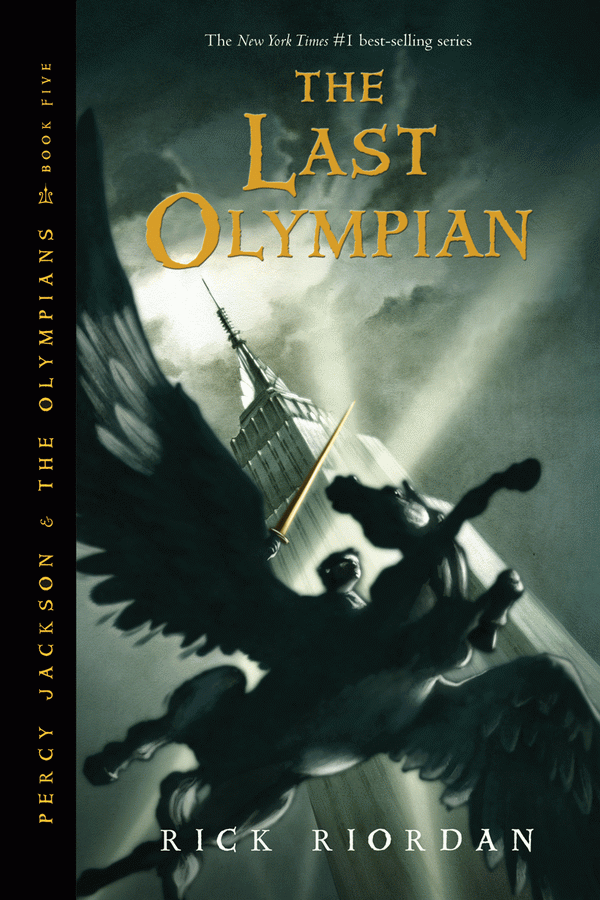
The Last Olympian Font
BookThe Last Olympian is the fifth and final novel in the Percy Jackson and the Olympians series by Rick Riordan. It follows Percy Jackson, a demigod, and son of Poseidon, as he and his friends fight against the Titans and their leader, Kronos, in a final battle to save the world.
The title The Last Olympian on the book cover is set in a decorative typeface called Windlass. Designed by David Nalle in 1993, Windlass is a commercial font and you can view more information about it here.